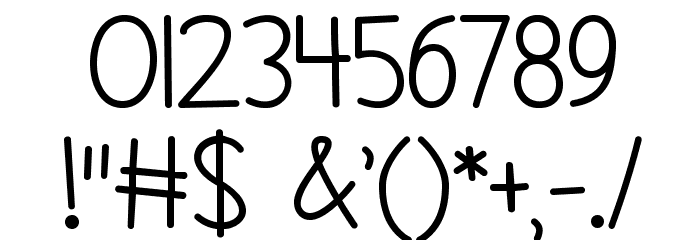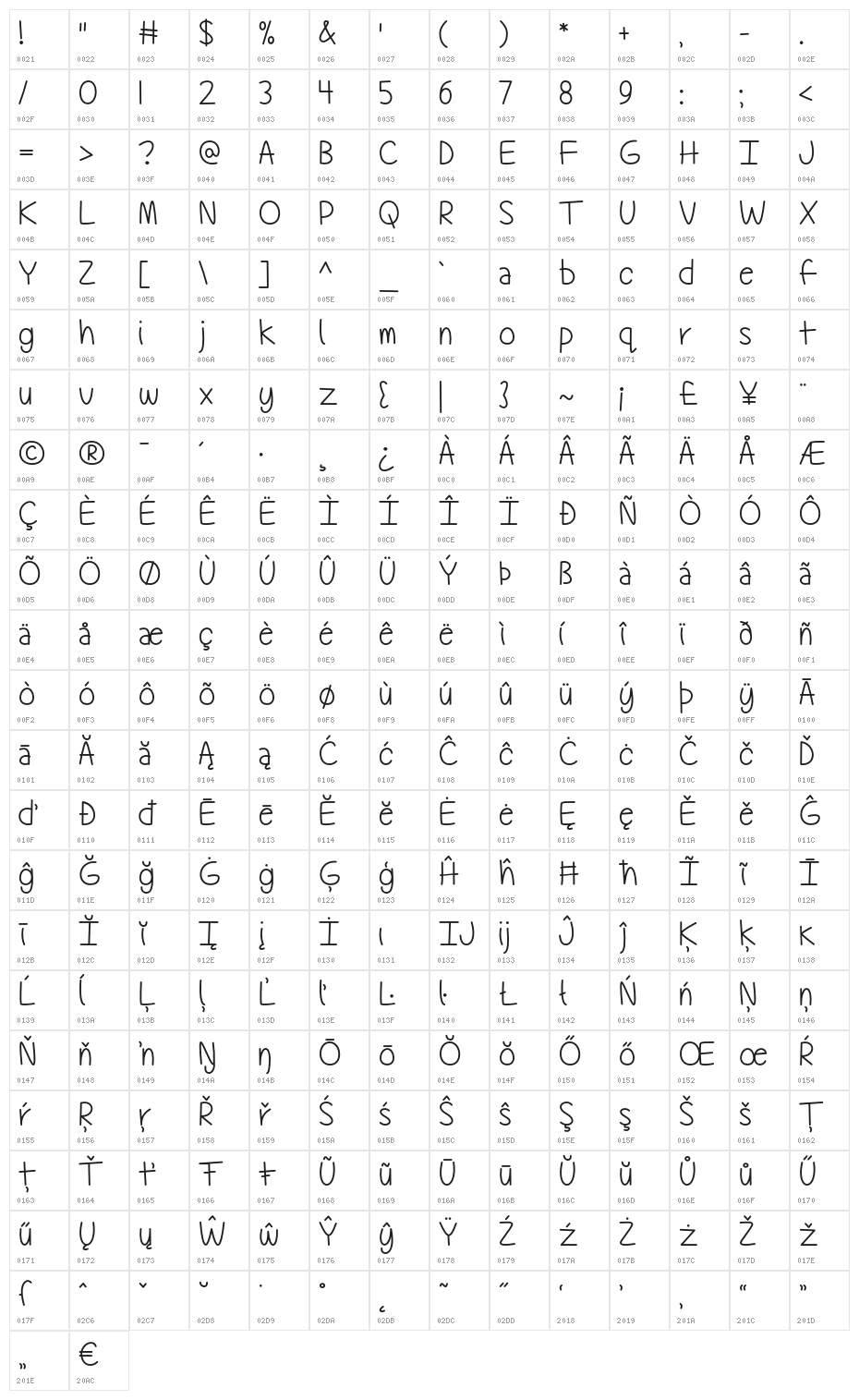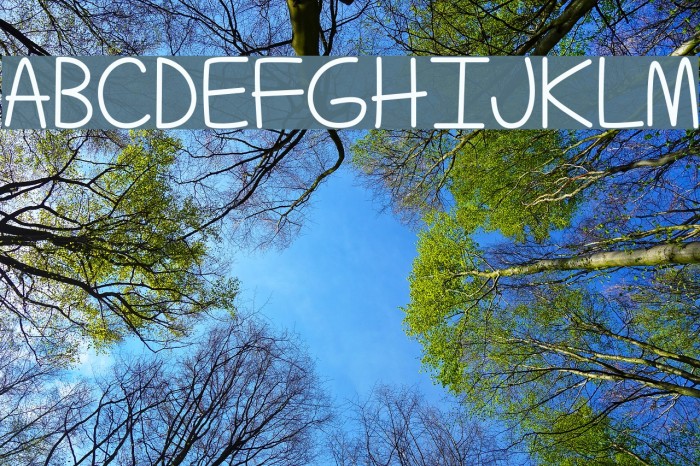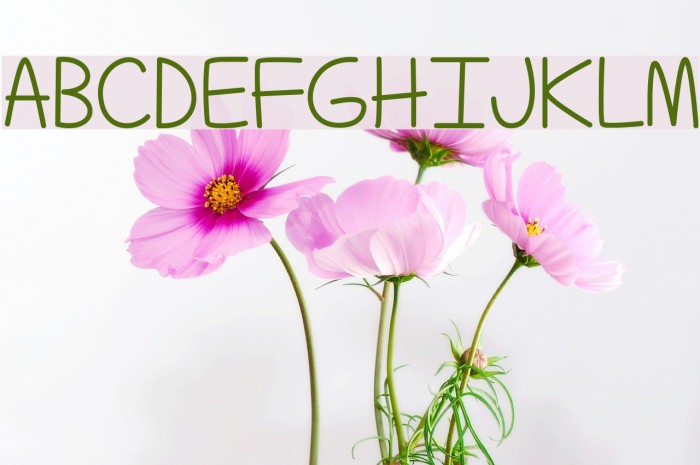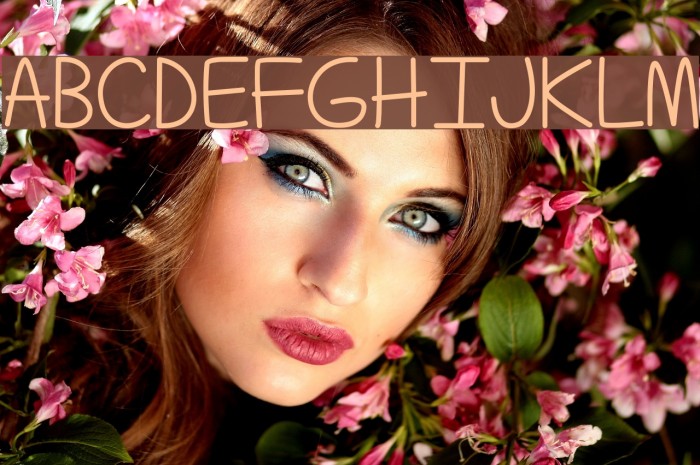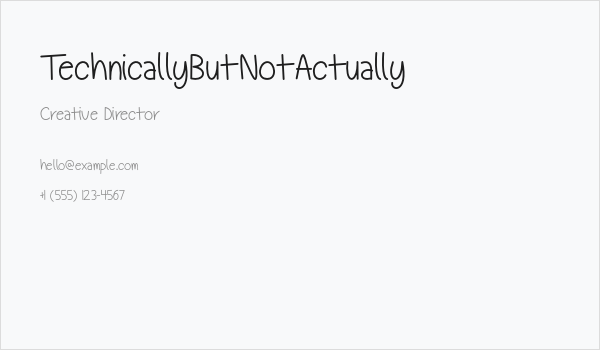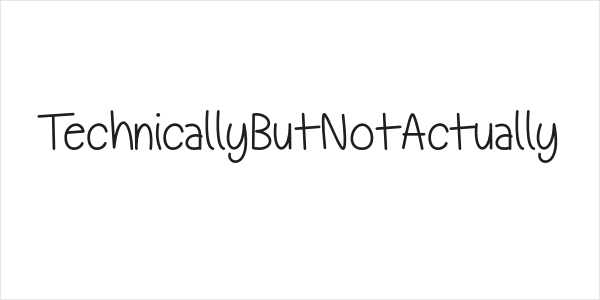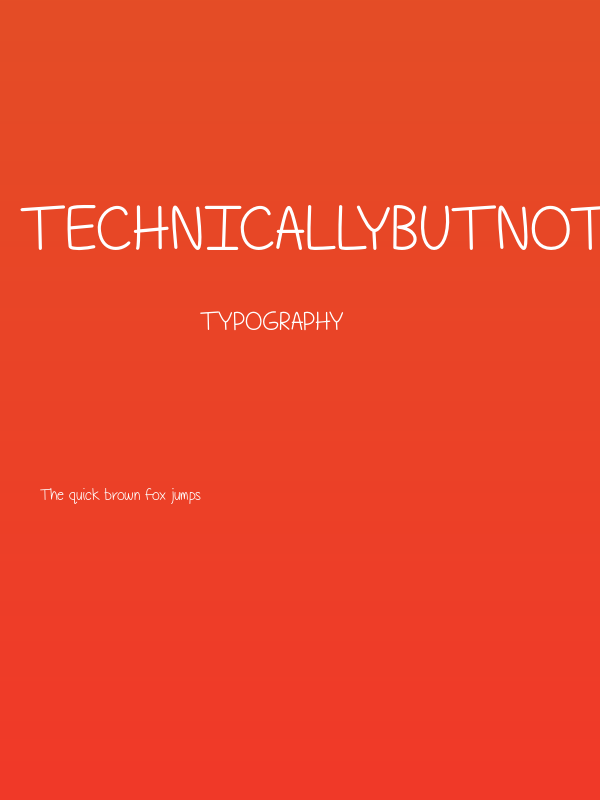
TechnicallyButNotActually Font
TechnicallyButNotActually Description
This playful and casual font features a handwritten style with rounded edges and a friendly appearance. The uppercase and lowercase letters maintain a consistent flow, with slightly irregular strokes that add to its charm. The numbers and special characters are crafted with the same informal touch, making them easy to read while retaining a whimsical feel. The font's overall design is approachable and versatile, suitable for a variety of creative projects. Its informal nature makes it ideal for conveying a sense of fun and creativity.
| Proposed Projects | Ideal for children's books, greeting cards, playful branding, and casual invitations. |